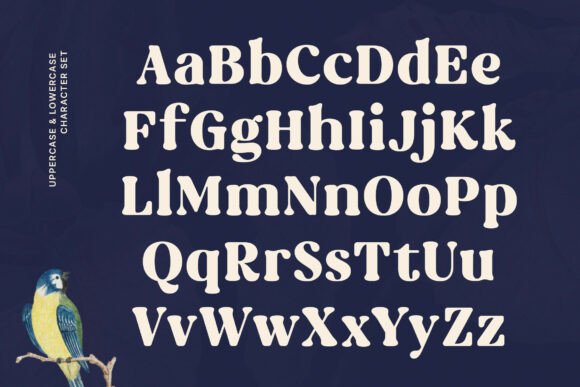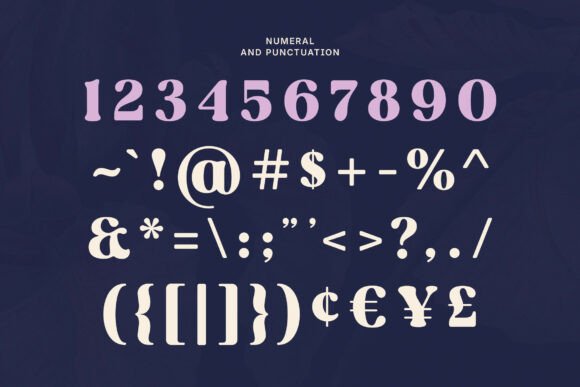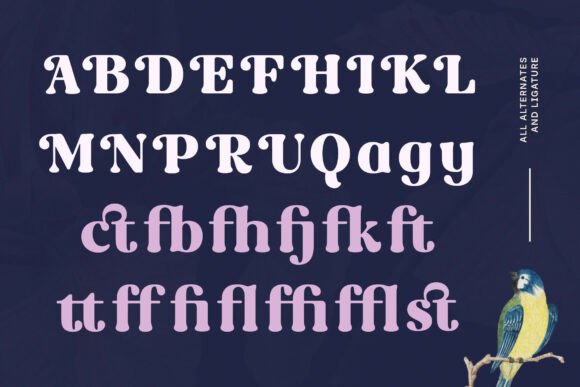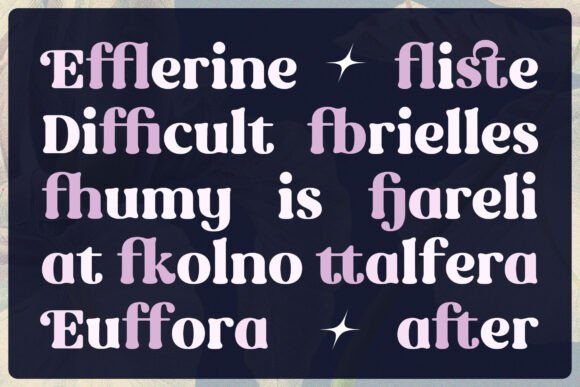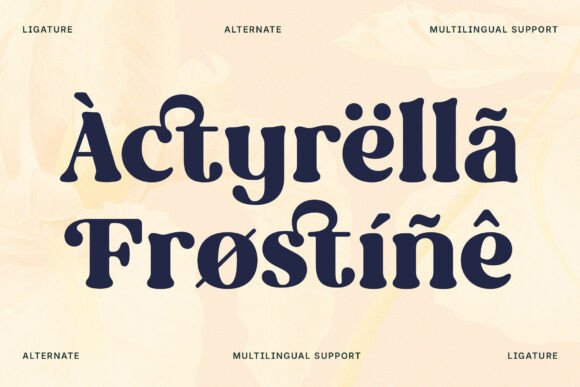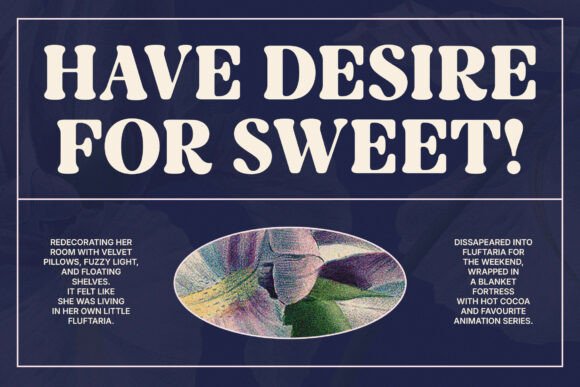
Introduction to Rost Bird Font
Rost Bird – Soft Retro Display Serif Font – Modern Bold Vintage Elegant Classic Typeface Rost Bird is a captivating retro display serif font that exudes a strong sense of vintage elegance.
With its unique curves and distinctive details, this font is designed to grab attention and add a personal touch to any design project, such as logos, branding, product packaging, posters, merchandise, advertising, headlines, magazines and any project that offers for brands looking to blend classic aesthetics with a modern feel, complete with a set of alternate characters and ligatures, creating a flexible, unique, warm, bold, and sophisticated impression Elevate your designs with a touch of retro.
Key Features of Rost Bird Font
Why Choose Rost Bird Font?